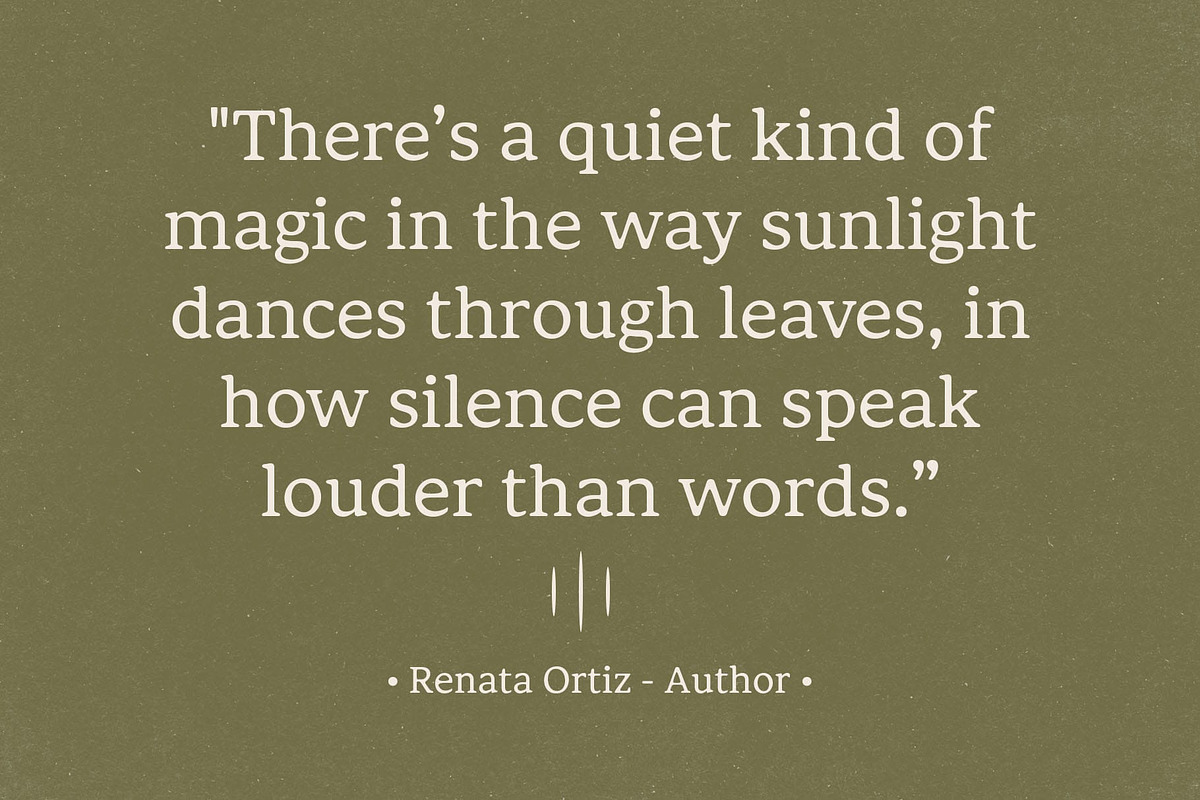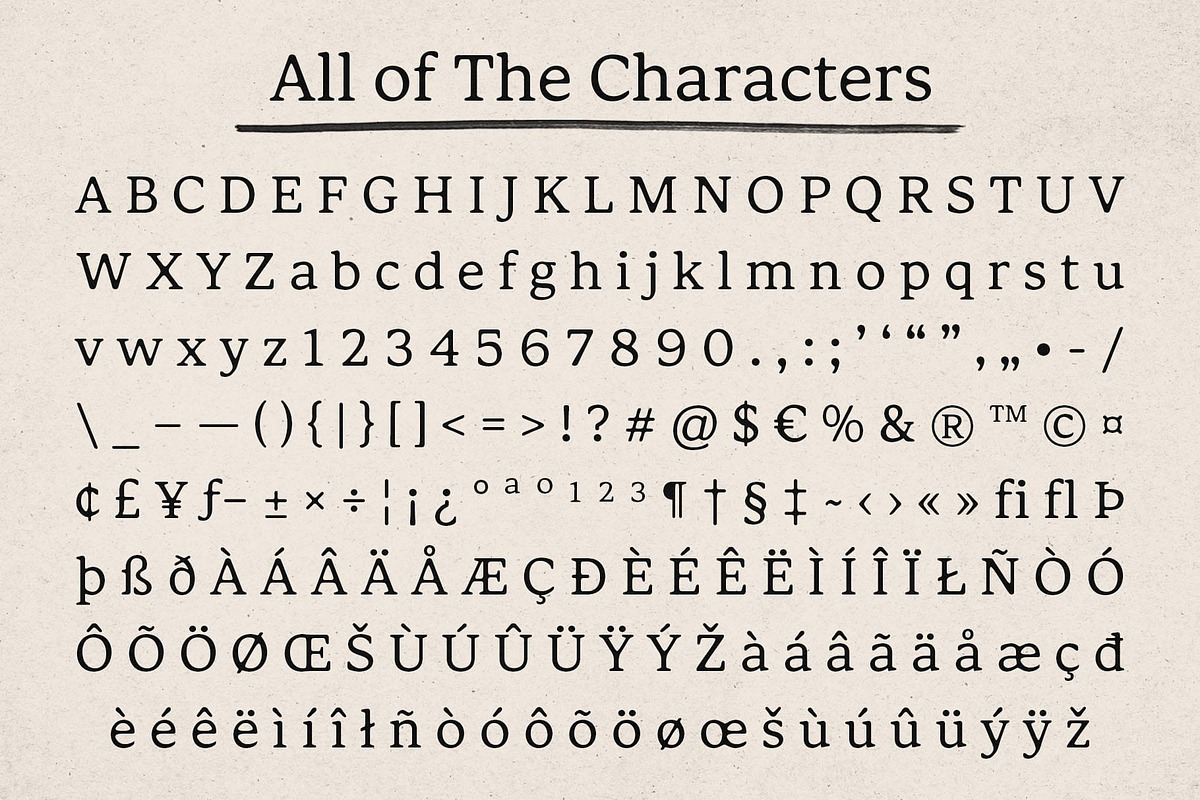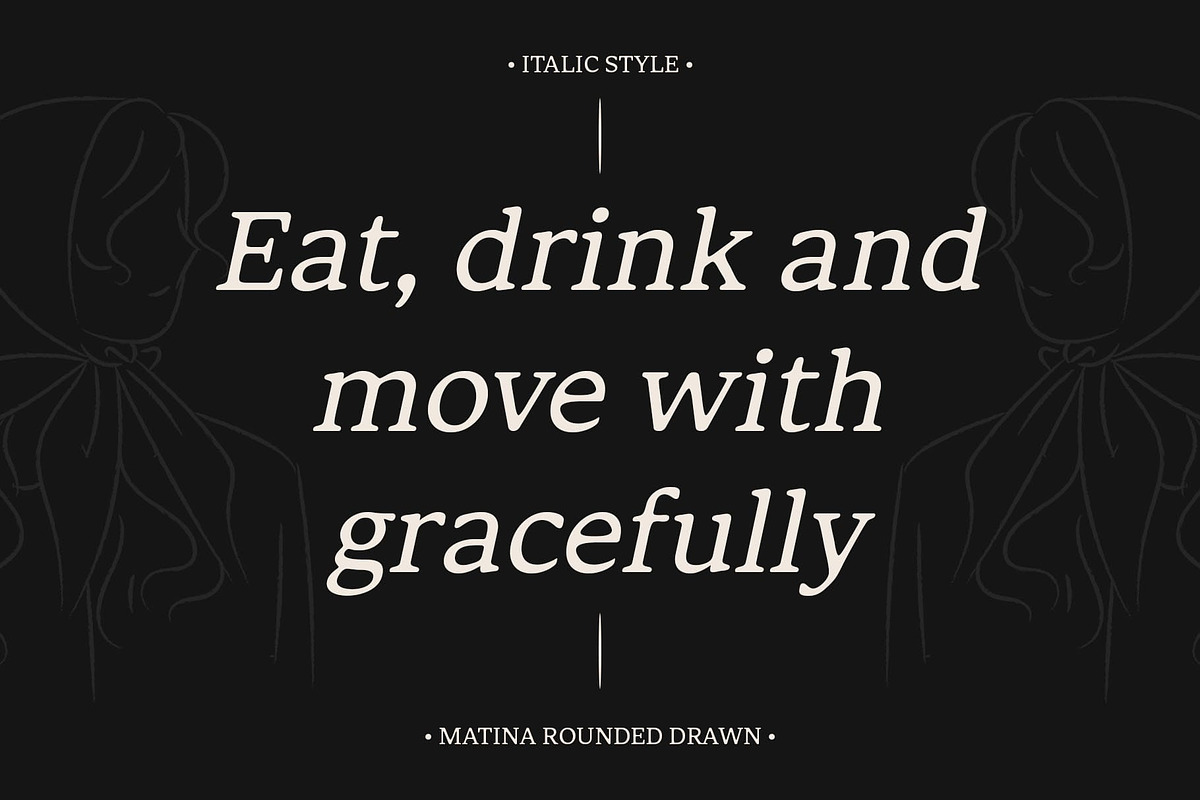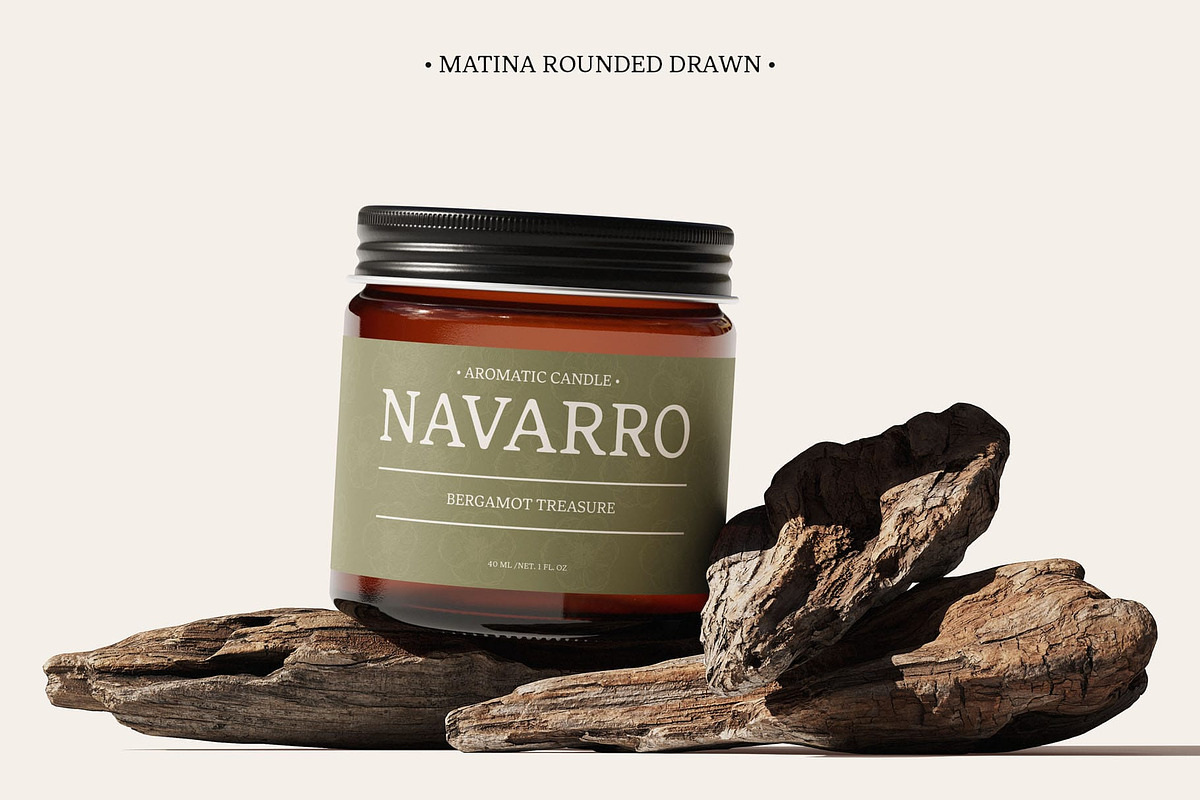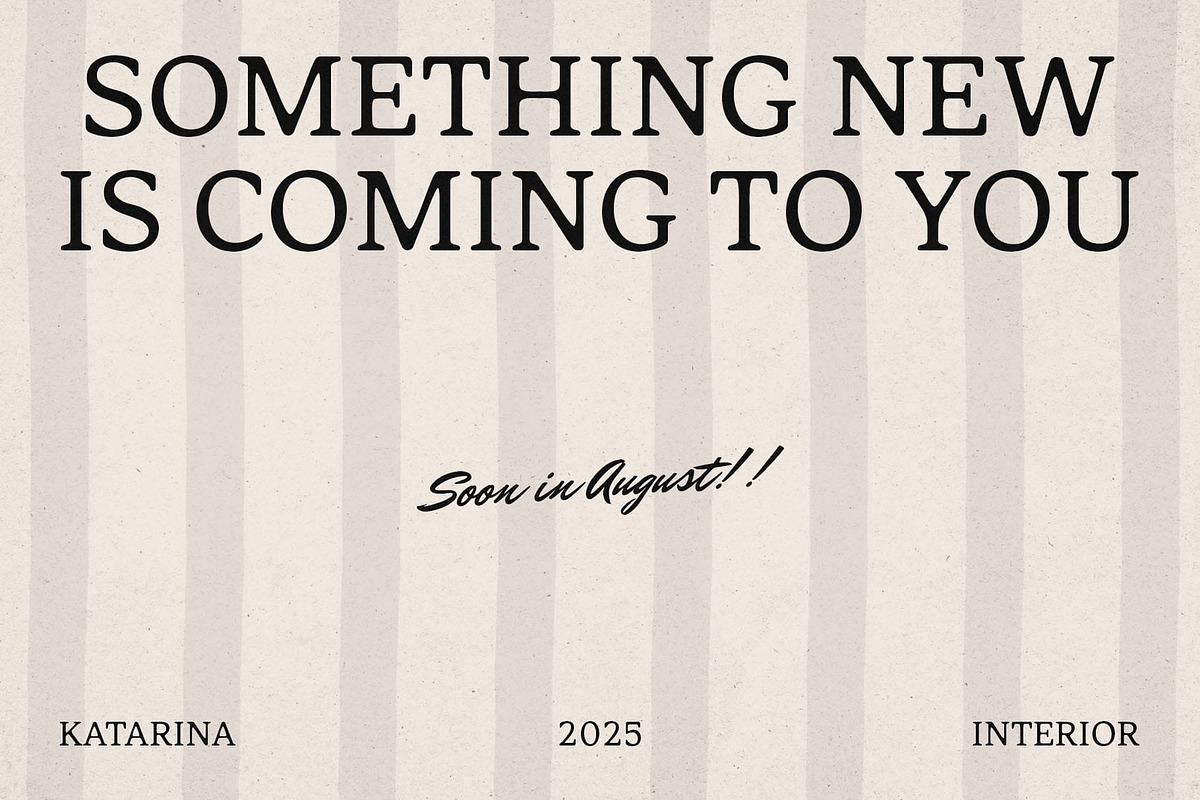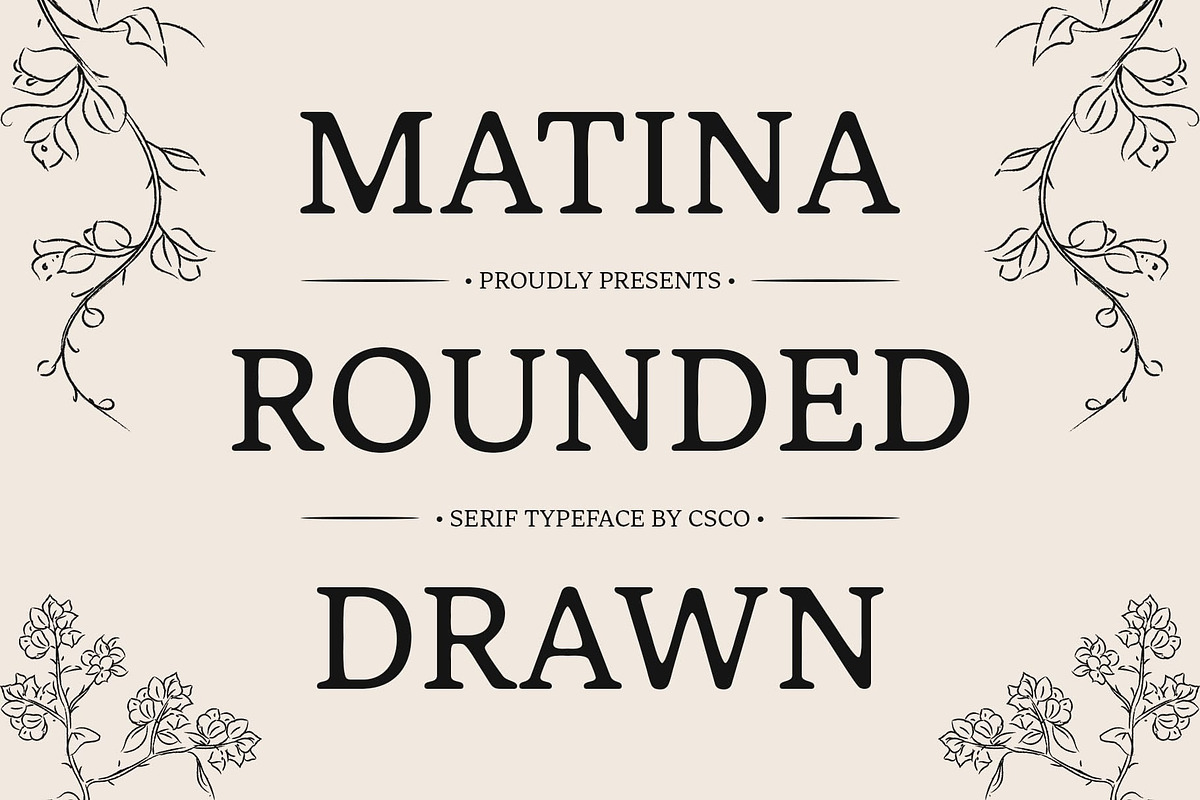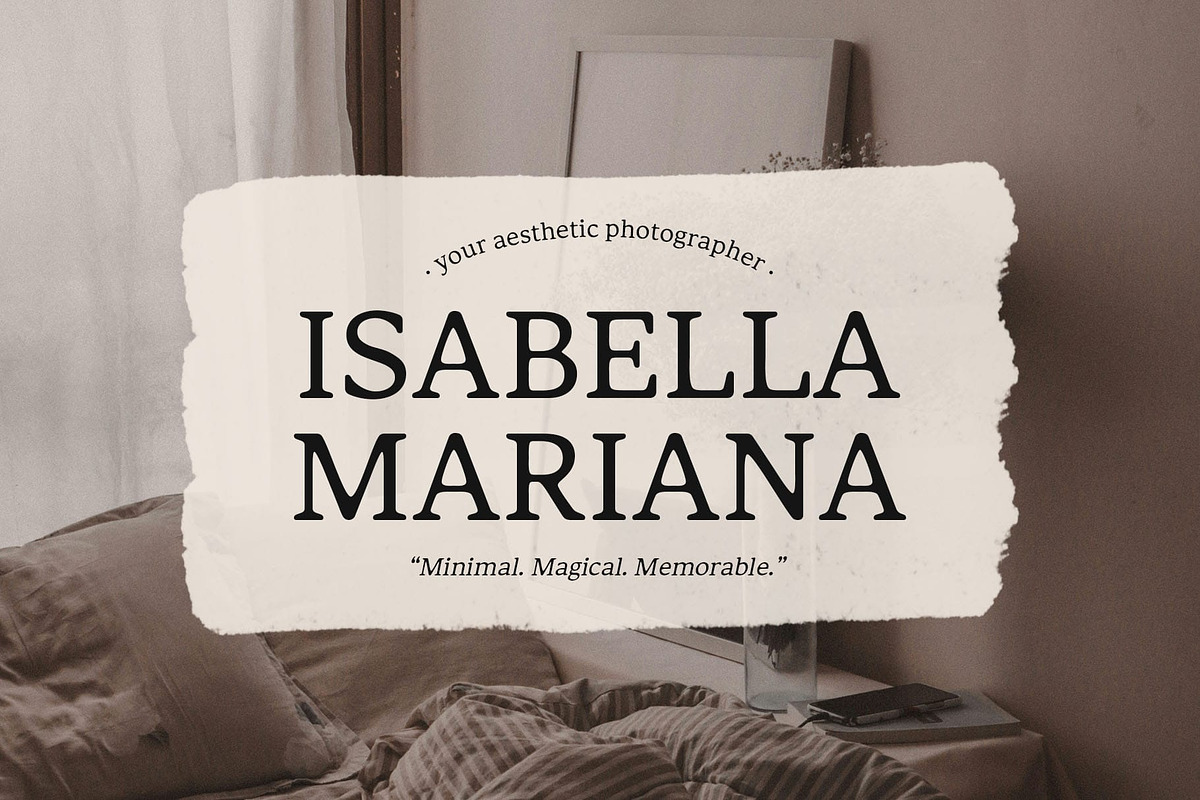
Matina Rounded Drawn
Matina Rounded Drawn – Refined Elegance with a Creative, Handcrafted Touch
Geometric Shapes with Rounded Elegance Matina Rounded Drawn is a modern classic serif font that seamlessly blends geometric precision with rounded edges. The geometric letterforms give the font a clean, contemporary feel, while the rounded curves add a sense of warmth and approachability.
Hand-Drawn Effect for Artistic Sophistication What sets this modern serif font apart is its unique hand-drawn effect, which adds a creative, artistic touch to its otherwise clean and geometric form. The hand-drawn texture provides an organic, handcrafted quality that enhances its charm and distinguishes it from more standard fonts.
Ideal for Upscale Branding and Editorial Design This contemporary font is perfect for upscale branding, editorial designs, and visual projects that demand a refined yet creative look. Its combination of geometric structure, rounded forms, and hand-drawn texture makes it an excellent choice for luxury branding, high-end magazines, and premium product packaging.
A Perfect Blend of Elegance and Artistic Flair This classic serif font is the perfect choice for projects that require a mix of elegance, modernity, and artistic flair. Its geometric shapes and soft rounded edges create a harmonious design, while the hand-drawn effect adds a distinctive and creative edge. It’s a versatile font that balances sophistication with personality, making it suitable for a wide range of high-end creative projects.